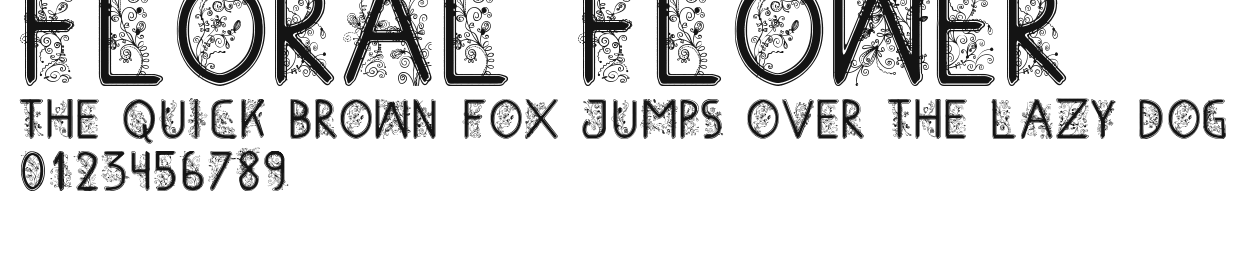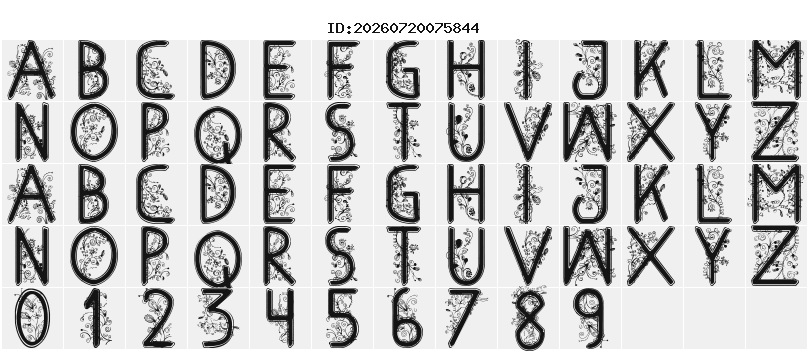
• Font Name: floral flower
• Font ID: floral flower:Version 1.00
• Full Font Name: floral flower
• Version: Version 1.00 November 24, 2012, initial release
• PostScript Name: floralflower
• Designer: kaiserzharkhan
About floral flower.ttf
floral flower.ttf is a modern, elegant sans-serif font designed for ultimate readability and visual harmony. Perfect for branding, headlines, web design, and print materials.